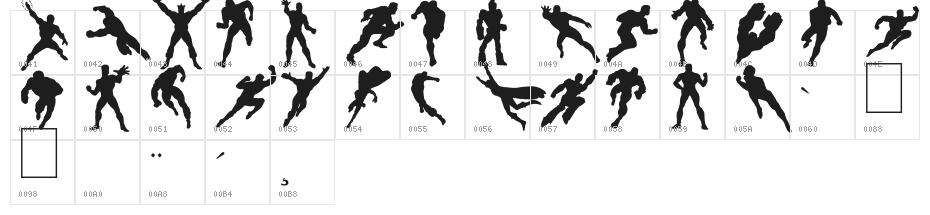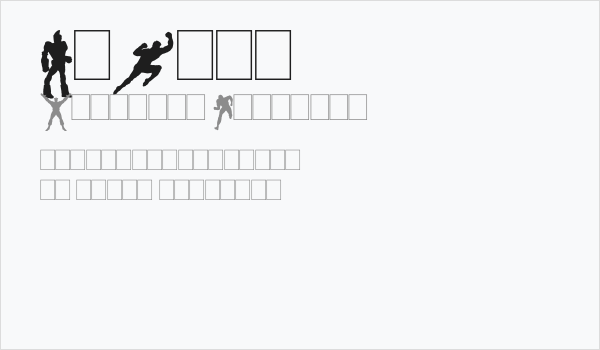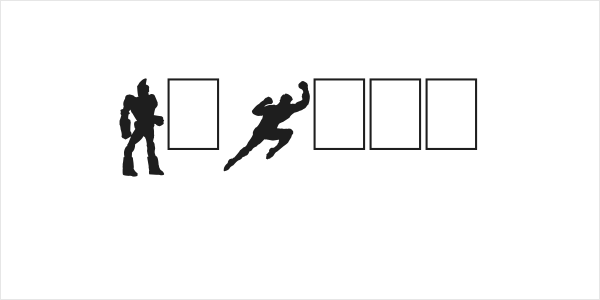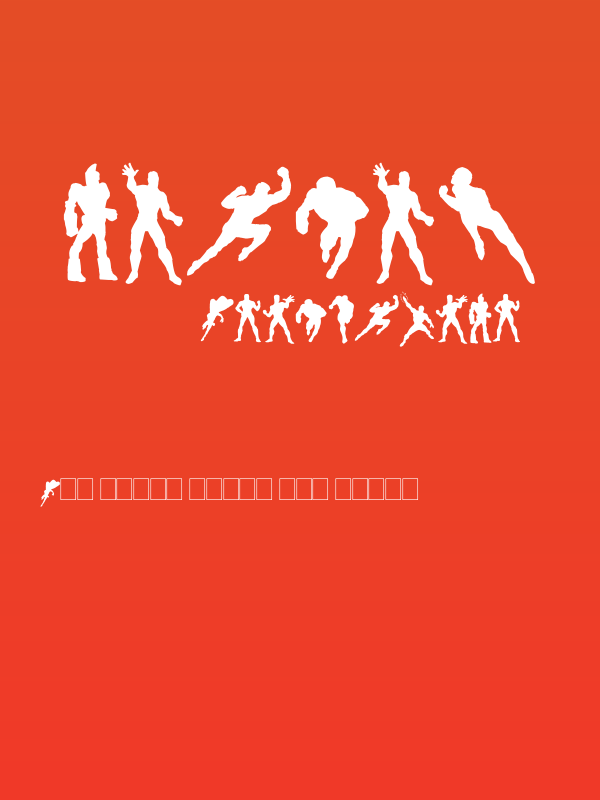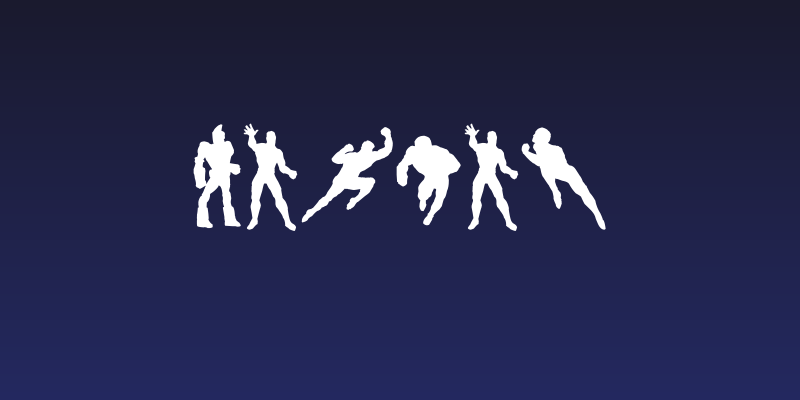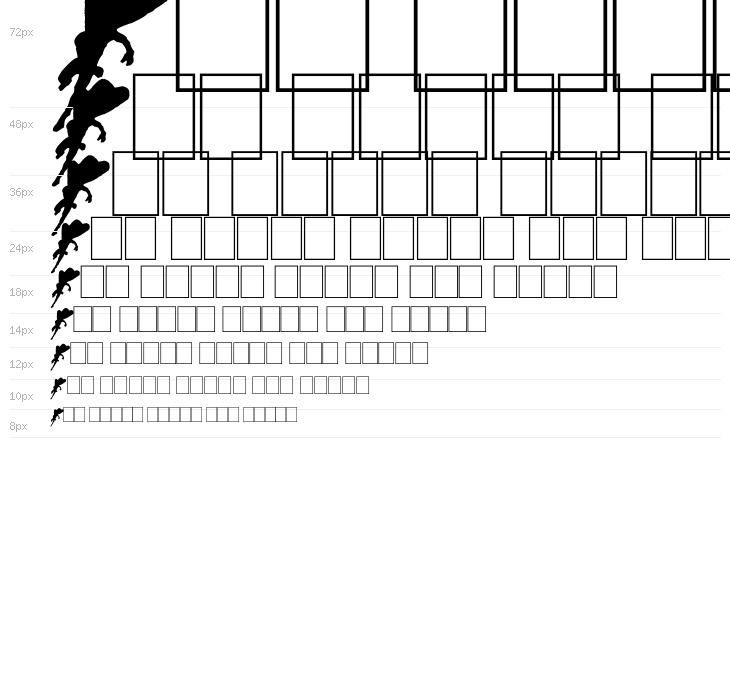
HeRoez Font
HeRoez Description
A decorative display font composed of dynamic superhero silhouettes forming each character, with bold, energetic poses and high visual impact. The glyphs are highly stylized, prioritizing theme over legibility, and each letter or symbol is represented by a unique action pose.
| Overall Style | Decorative, Thematic, Playful |
| Use Case | Headlines, Logos, Posters, Themed graphics |
| Proposed Projects | Comic book titles, superhero-themed posters, event flyers, children's party invitations, entertainment branding. |